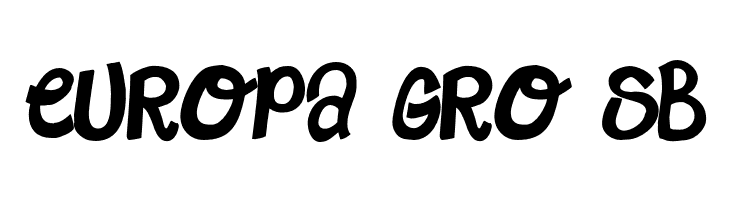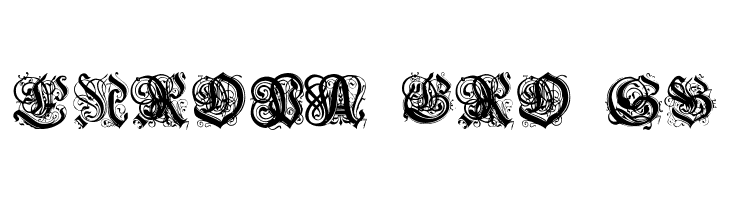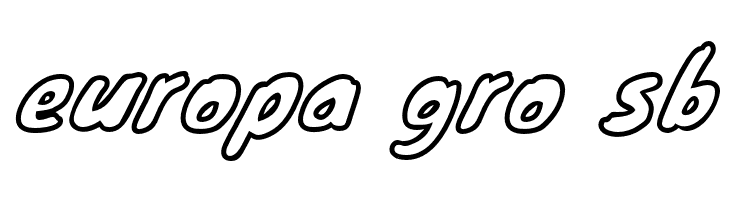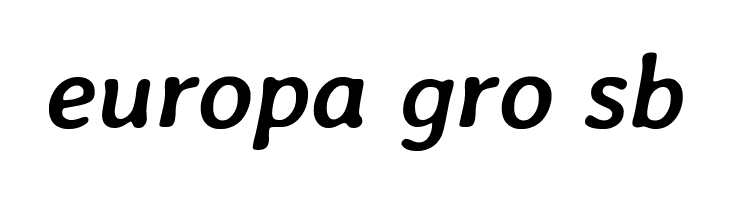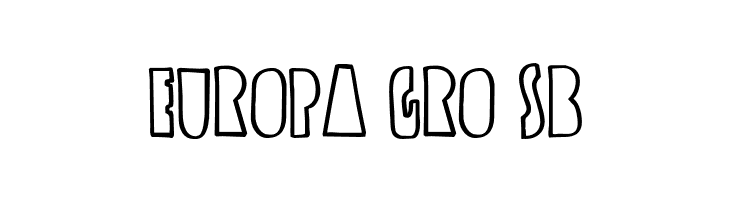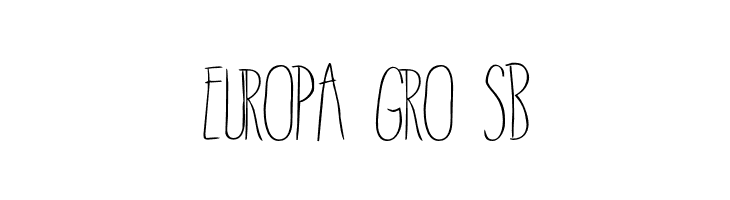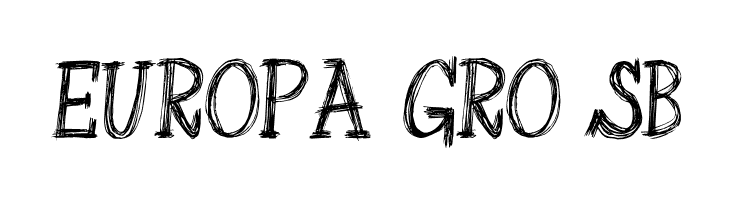
A bold, playful font with a hand-drawn, whimsical aesthetic.
An ornate and decorative font with high contrast and intricate flourishes.
A playful, outlined font with a cartoonish, dynamic style.
A bold, italic font with rounded, smooth characters and a modern yet classic style.
A modern serif font with elegant curves and clean lines.
A whimsical, handwritten font with tall, narrow letters and a playful style.
A playful, casual handwritten font with smooth, flowing lines.
A bold, retro font with a three-dimensional outline and vintage flair.
A bold, hand-drawn font with a sketch-like, textured appearance.